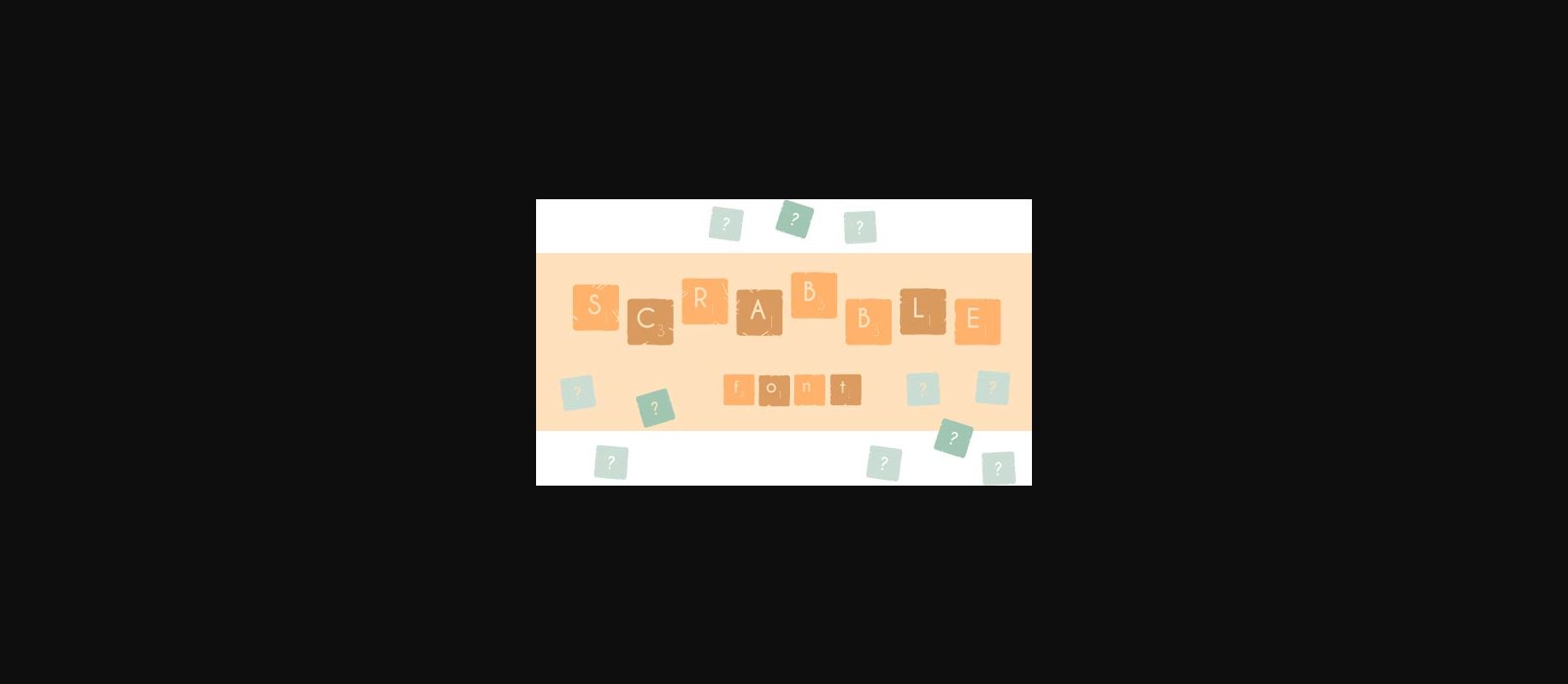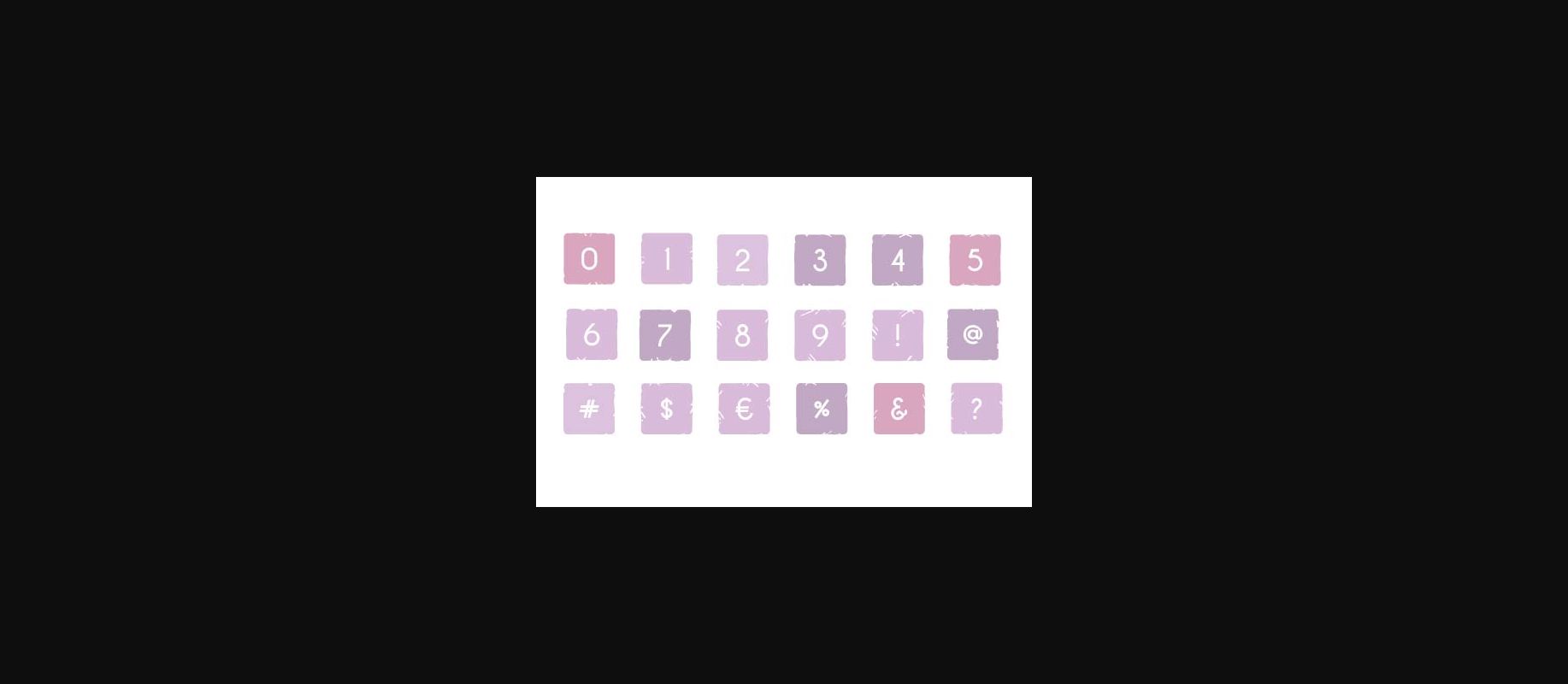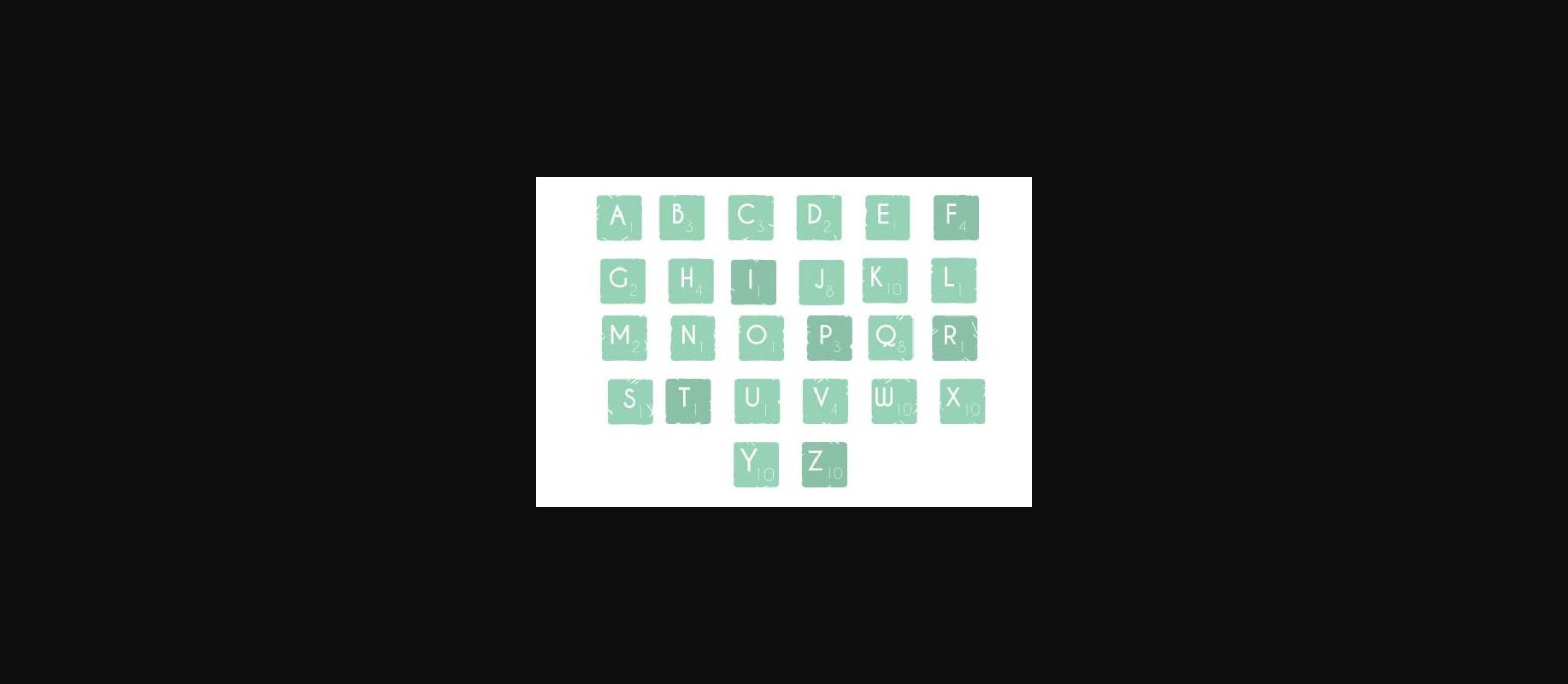
The Scrabble Font
The Scrabble Font is the ultimate font for scrabble/scribble addicts.
Every letter you type will come in a unique tile. This font is great for decorating and creating unique items.